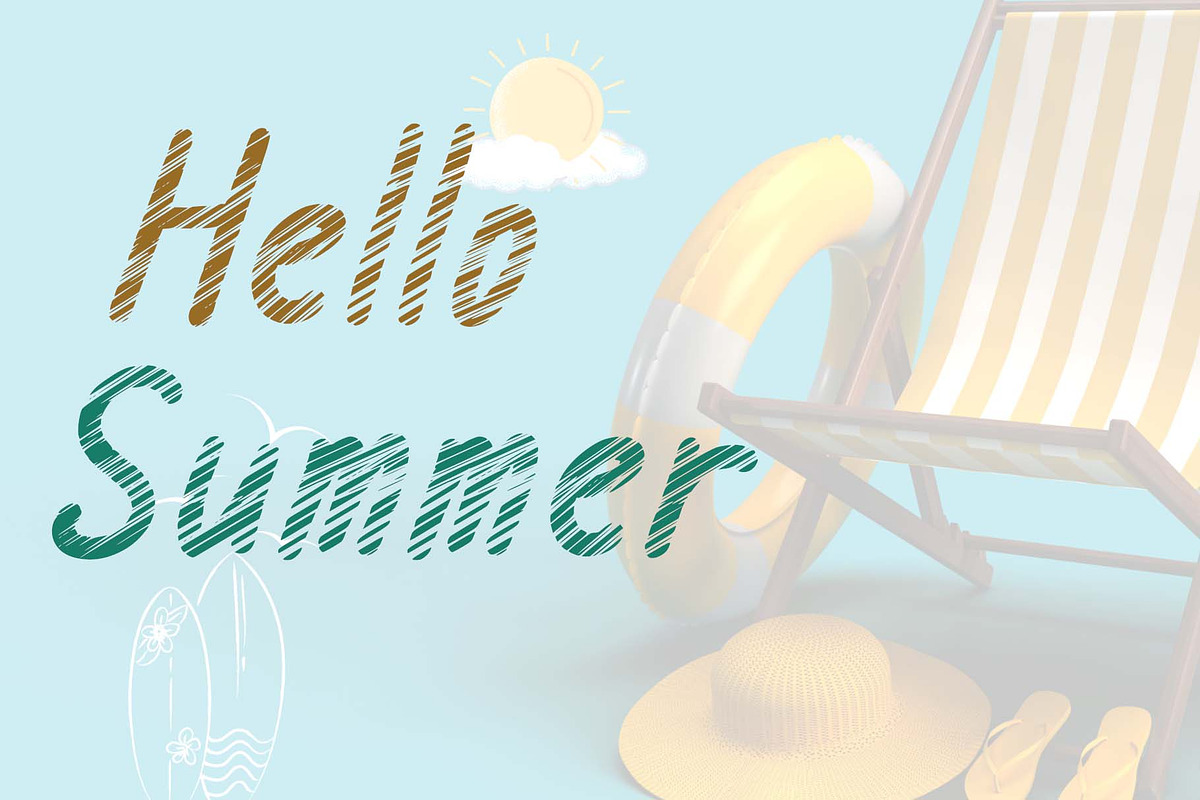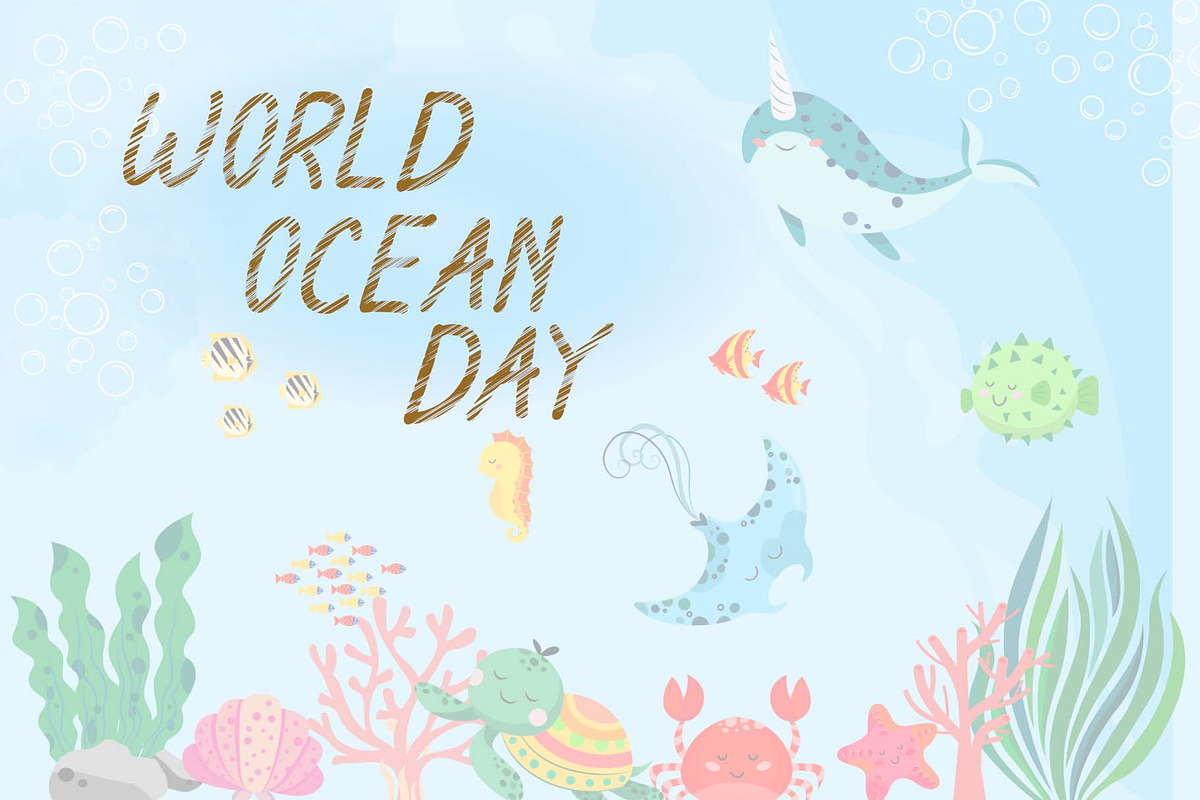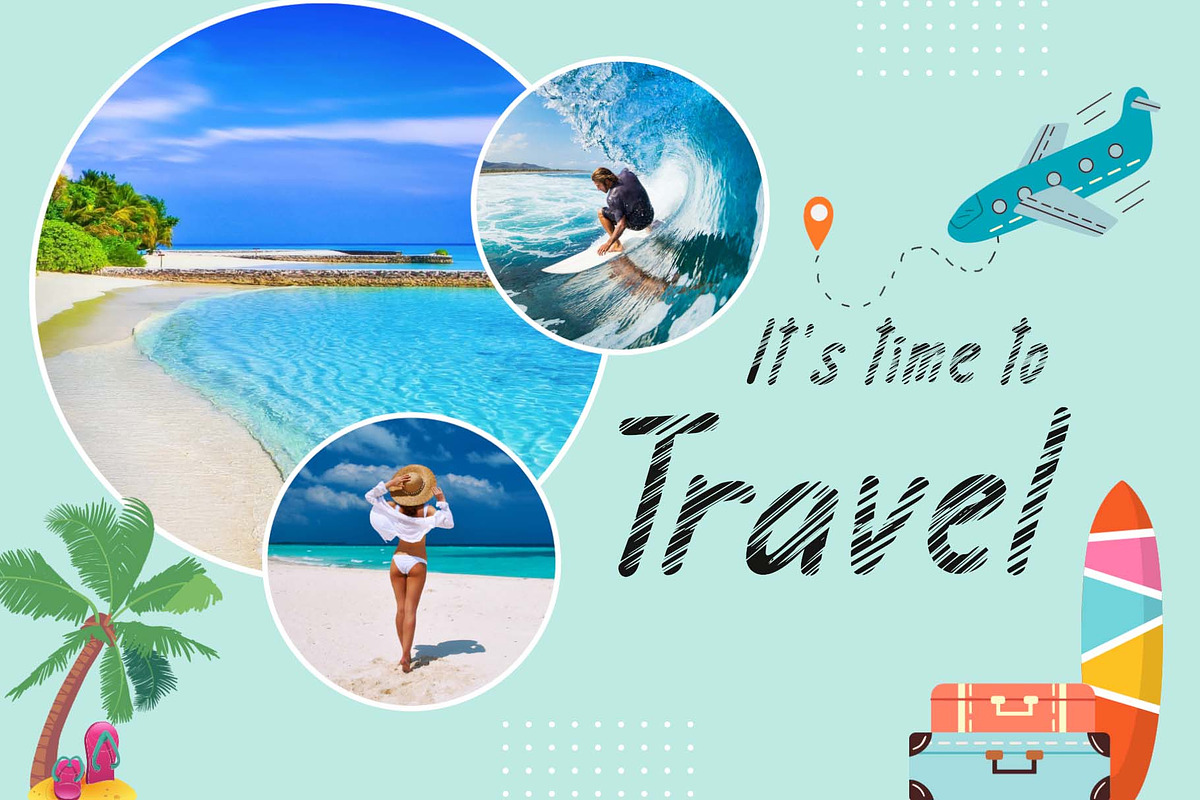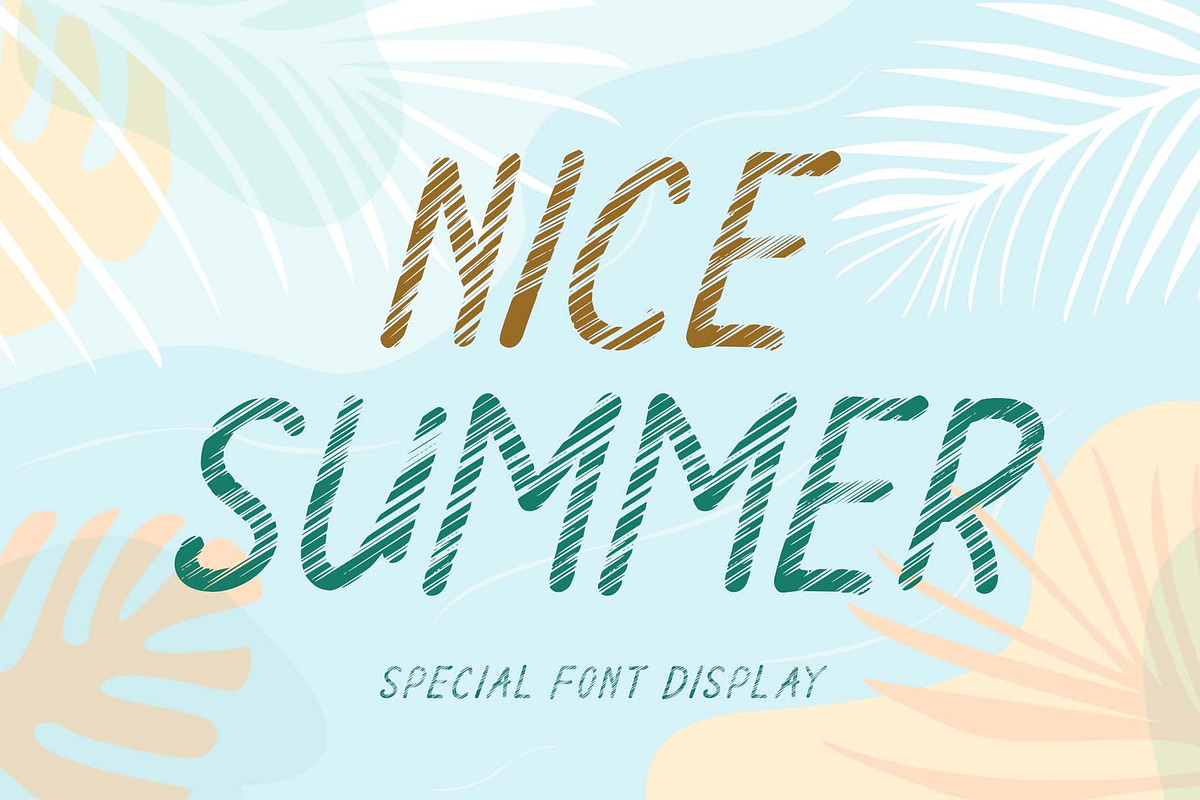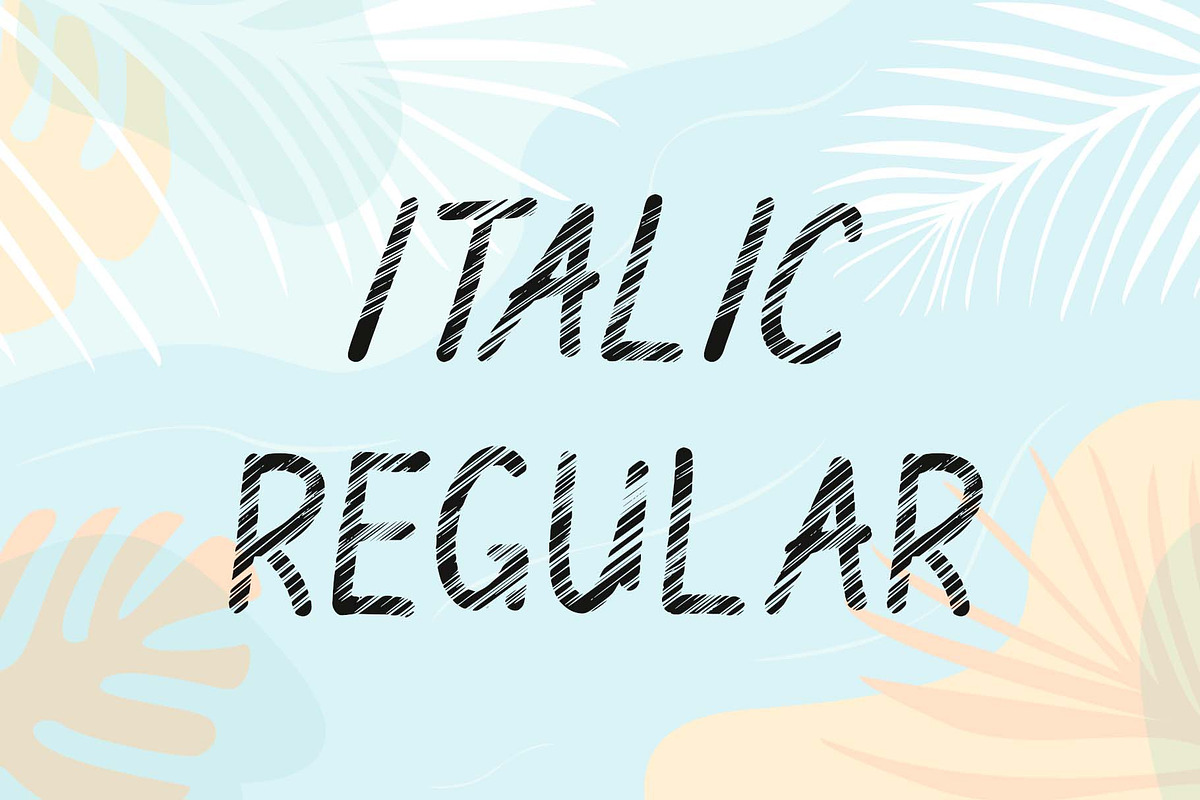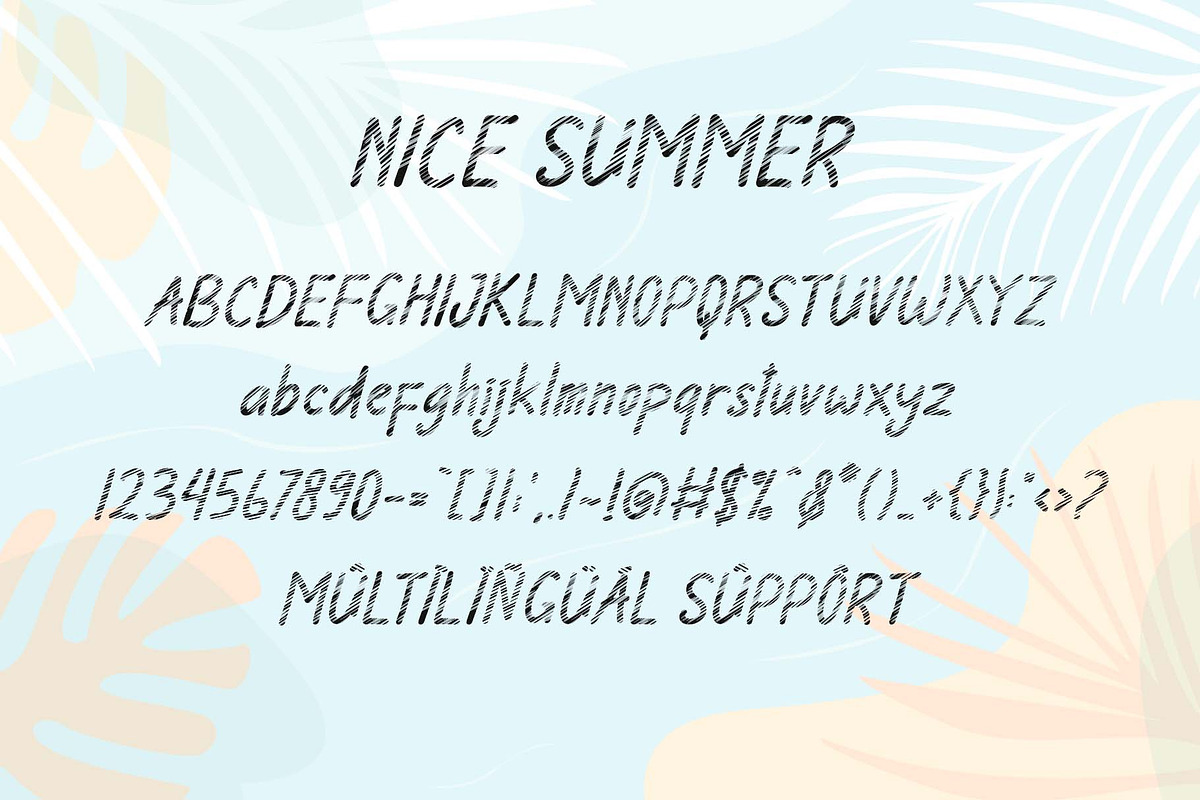
Nice Summer
"Nice Summer" is a display font with shading on each letter, making this font unique. Equipped with regular and italic letters, uppercase and lowercase numerals, punctuation, and multilingual support. This font can be used for summer moments, holidays, vacations, traveling, graduation, Father's Day, Christmas, and others.